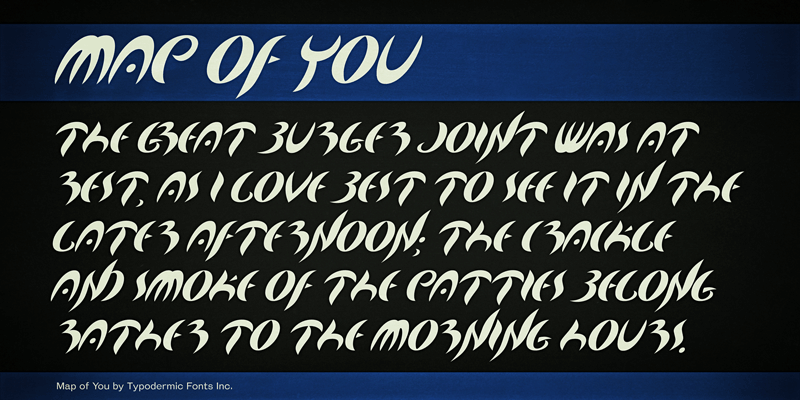
Preview and download Map Of You Font. Created by Typodermic Fonts in Fancy Various styles with 100% Free license.
The scimitar flavored Map Of You was created for intergalactic space tribes. This font includes a license that allows free commercial use: sometimes referred to as a desktop license. This allows you to install the font on a computer and use it to create posters, web graphics, game graphics, t-shirts, videos, signs, logos and more. Read the license agreement for details. |